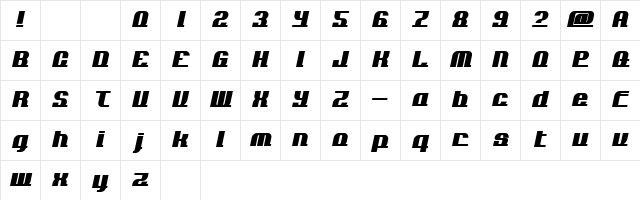
AddLoops Normal Free Font
AddLoops Normal
AddLoops Family
Design Context for AddLoops
AddLoops is a composed and adaptable typeface that performs quietly and consistently across a wide range of design contexts.